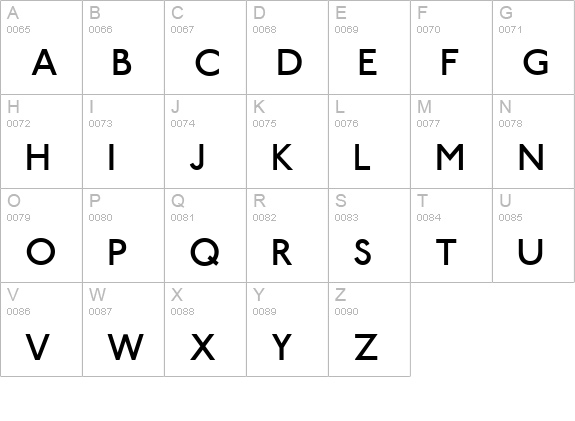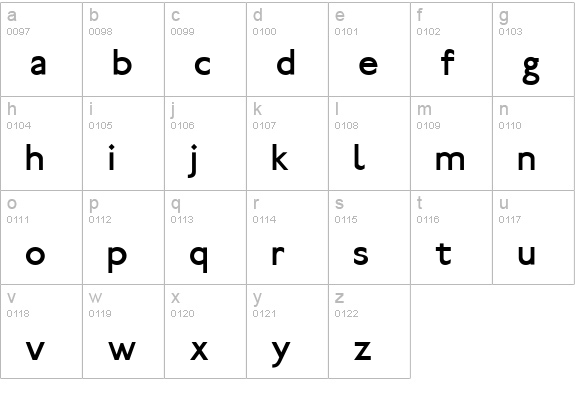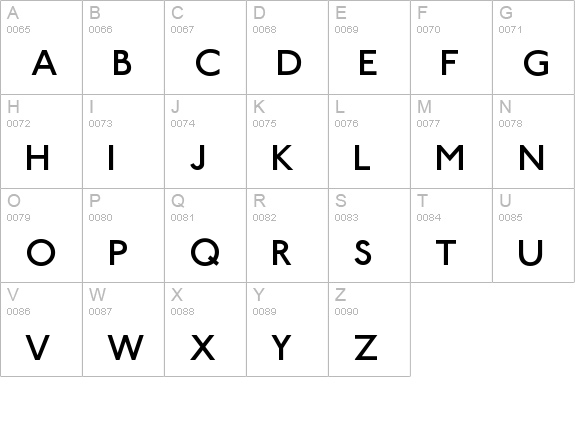
Paddington Plain is a charming and versatile font that is sure to add a touch of whimsy to any design project. With its clean lines and playful curves, this font is perfect for adding a touch of elegance to invitations, logos, or social media posts. But what sets Paddington Plain apart is that it is not only stylish, but also free. That's right, you can download this font for absolutely no cost at FontsMarket.com. Whether you're a professional designer or just someone looking to add a little flair to your personal projects, Paddington Plain is a must-have font that won't break the bank. With its wide range of uppercase and lowercase characters, as well as numerals and punctuation marks, Paddington Plain offers endless possibilities for creative expression. The smooth and consistent letterforms make it easy to read at any size, ensuring that your message will always be clear and engaging. So why wait? Download Paddington Plain today and let your creativity soar. With its free availability at FontsMarket.com, there's no reason not to add this delightful font to your collection. Whether you're creating a logo, designing a website, or crafting a social media post, Paddington Plain is the perfect choice to bring your ideas to life.